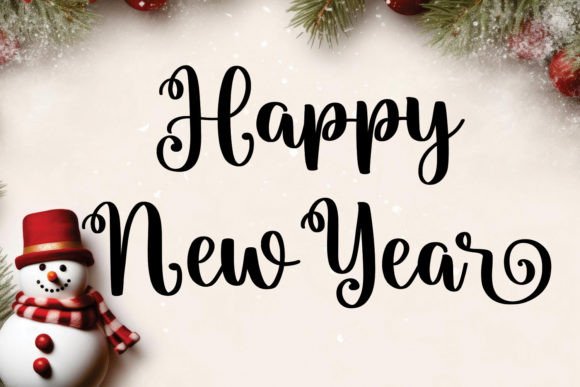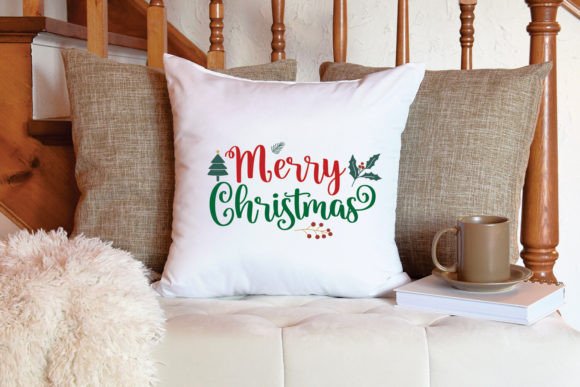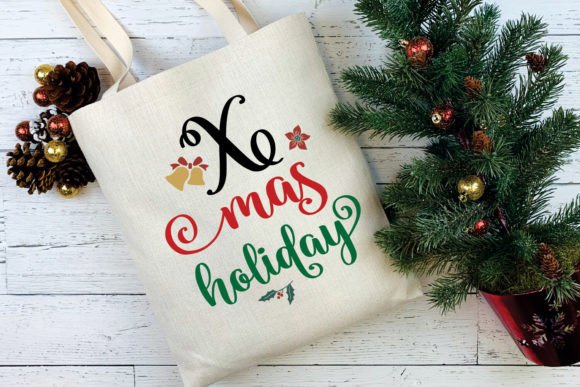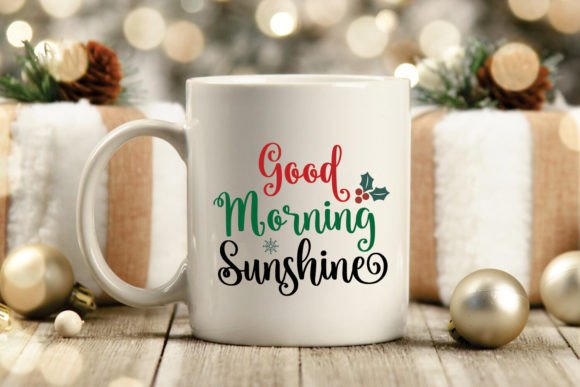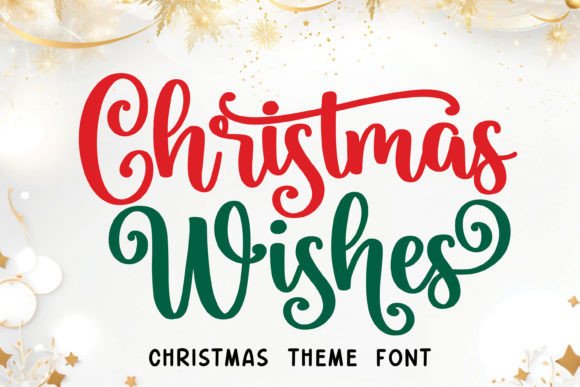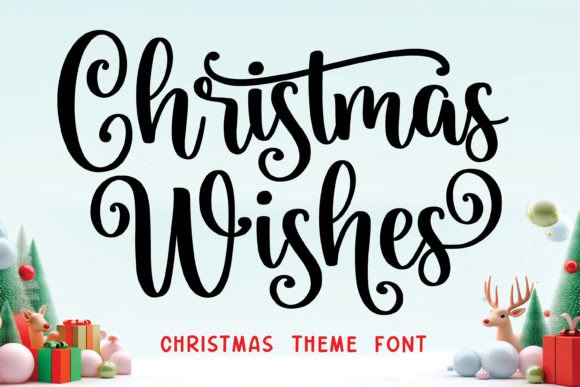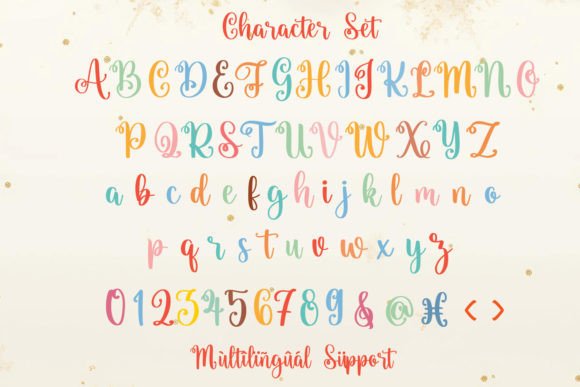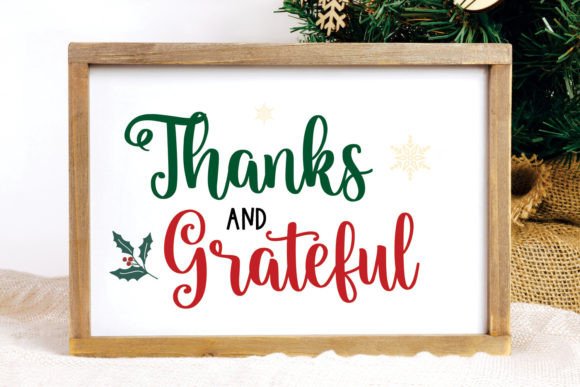
Christmas Wishes Font
The “Christmas Wishes” Font is your ultimate companion for the holiday season, designed to infuse all your projects with the heartfelt spirit of Christmas. Whether you’re crafting by hand, creating invitations, decorating for the holidays, designing brochures, and posters, or sending out warm and festive greetings, this font is the ideal choice to bring a touch of elegance and personal charm to your work.